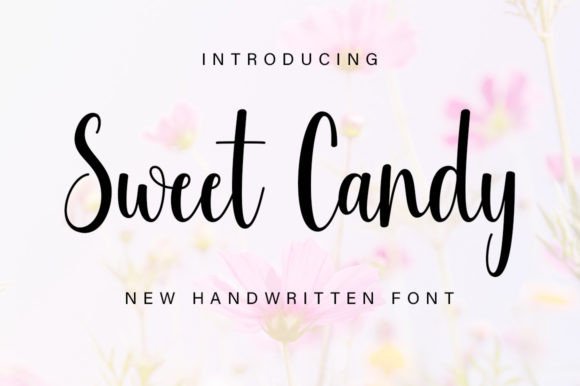
Step into the enchanting realm of Sweet Candy Font, a script typeface that exudes charm and elegance in equal measure. Its graceful curves and playful personality will add a touch of magic to your creative projects, leaving a lasting impression on your audience.
With Sweet Candy, you can easily craft captivating wedding invitations that reflect the joy of your special day. Its delicate details will enhance your heartfelt words, making them even more meaningful. Imagine the delight on your loved ones' faces as they receive these beautifully designed invitations, a testament to your love and attention to detail.
Expand your creativity beyond wedding invitations with Sweet Candy. Design stunning thank you cards that express your genuine gratitude, leaving a lasting impression on those who have shown you kindness. Create awe-inspiring quotes that resonate with your audience, using Sweet Candy to amplify the emotional impact of your words. Send heartfelt greetings with Sweet Candy-embellished greeting cards, adding a personal touch that will warm the hearts of your recipients.
Elevate your brand identity with Sweet Candy, a font that exudes professionalism and sophistication. Craft captivating logos that leave an indelible mark on your clients' minds, ensuring that your business stands out from the crowd. Design elegant business cards that reflect your brand's values and leave a lasting impression at every networking event. Sweet Candy is the perfect choice for adding a touch of refinement to your marketing materials, brochures, and presentations.
The possibilities are endless with Sweet Candy. Let your imagination soar as you explore new ways to incorporate this enchanting font into your creative endeavors. Sweet Candy is the key to unlocking your creative potential, allowing your ideas to blossom into beautiful, captivating designs. Embrace the magic of Sweet Candy Font and embark on a journey of creativity that will leave you inspired and fulfilled.